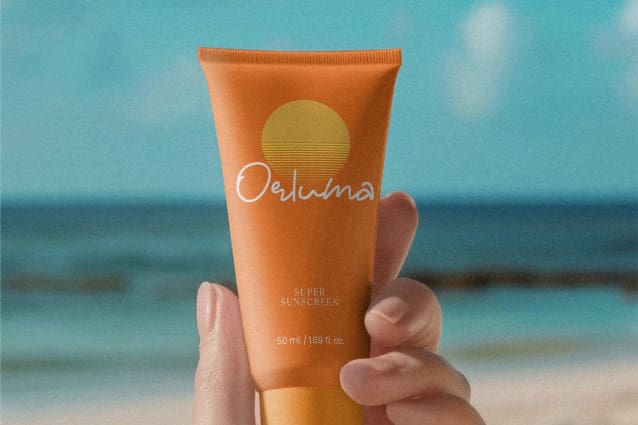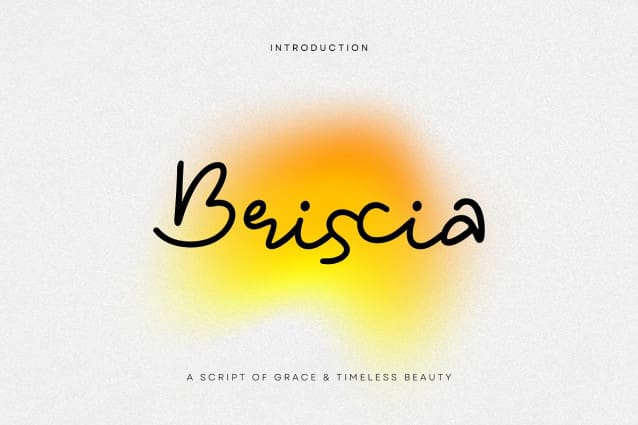
Briscia Script Font
Briscia Script Font, a sophisticated handwritten script designed to flow effortlessly across your designs. With its smooth curves and dynamic strokes, Briscia embodies a perfect blend of grace, modernity, and charm, making it an exquisite choice for branding, invitations, and editorial designs.